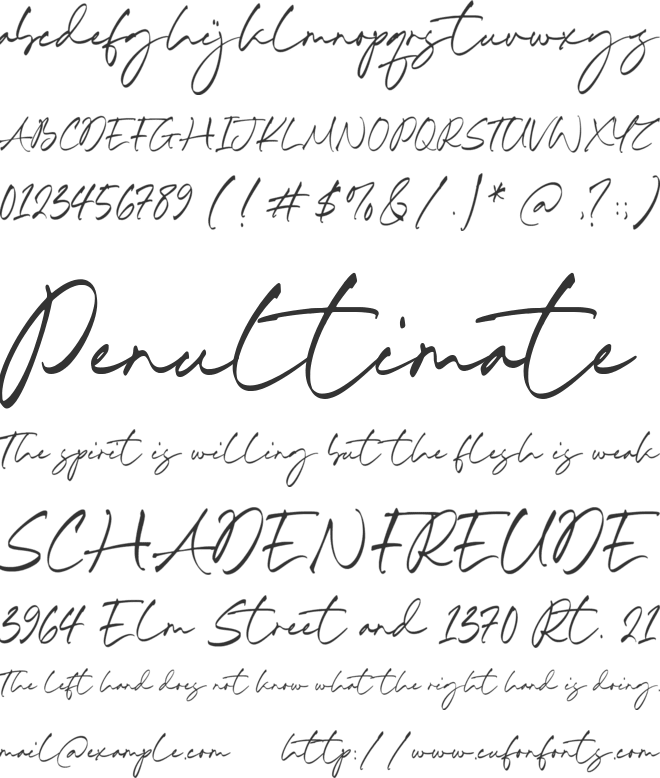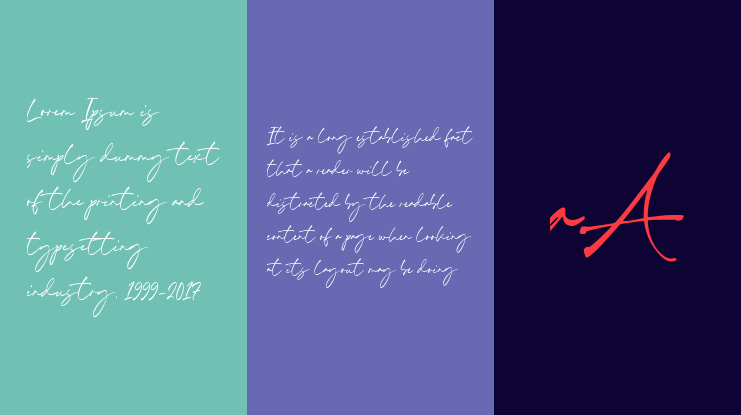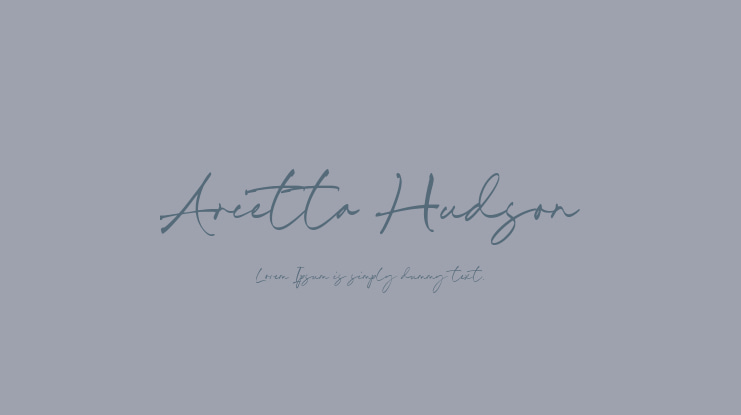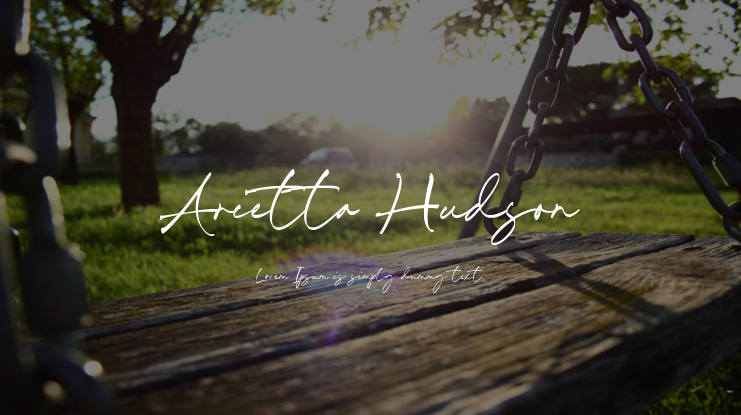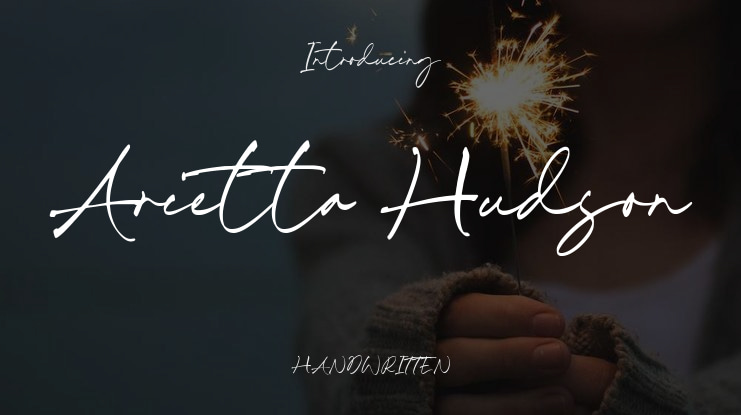
Arietta Hudson Font
Introducing Arietta Hudson by Timurtype Studio, a modern handwritten script font that effortlessly combines elegance with a casual and friendly vibe. Its flowing lines and stylish curves lend a personal touch to any design, making it perfect for invitations, branding, and social media graphics. Every letter is meticulously crafted to exude warmth and creativity, ensuring that your message stands out with a unique, handwritten charm. Ideal for both formal and informal projects, Arietta Hudson offers a contemporary twist on classic calligraphy.
Font Features Include:
- Ligatures
- Multilingual support
- Full set of standard alphabet and punctuation